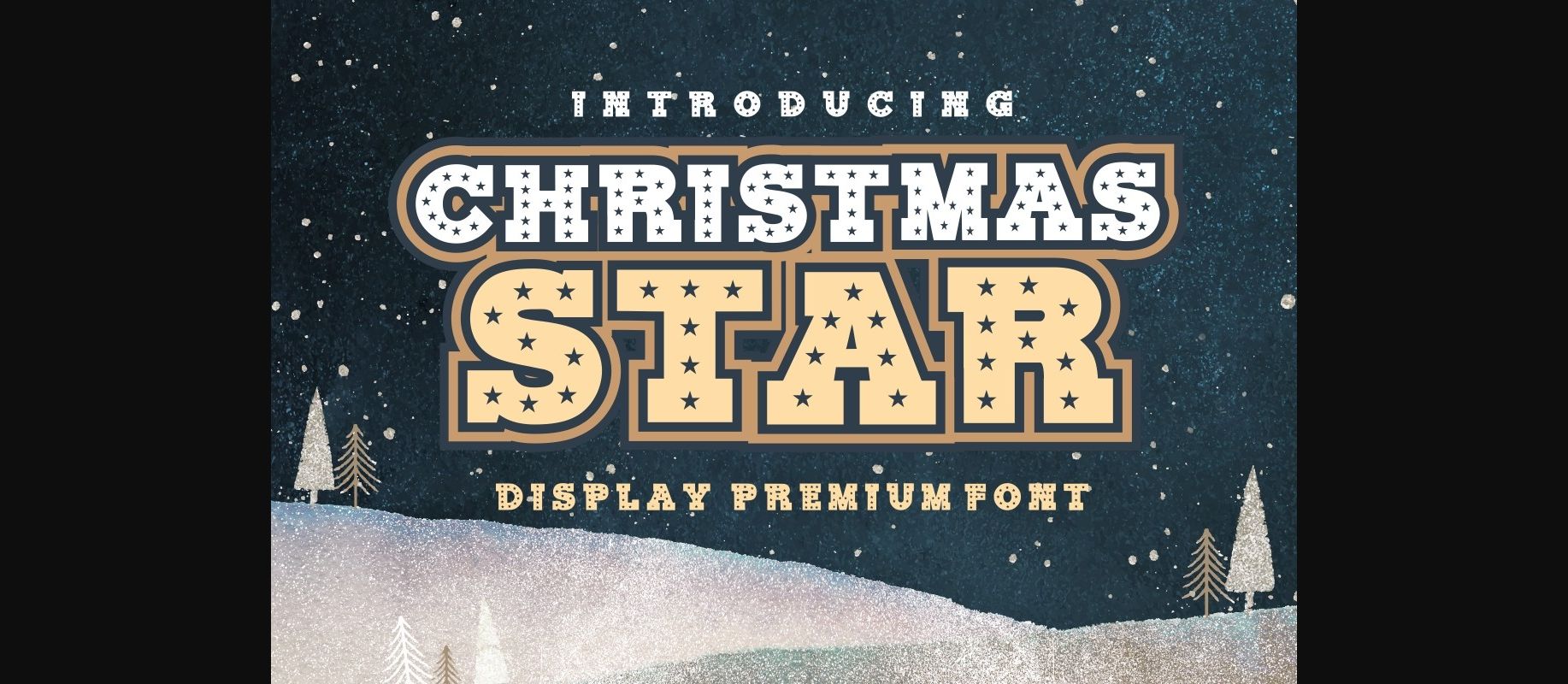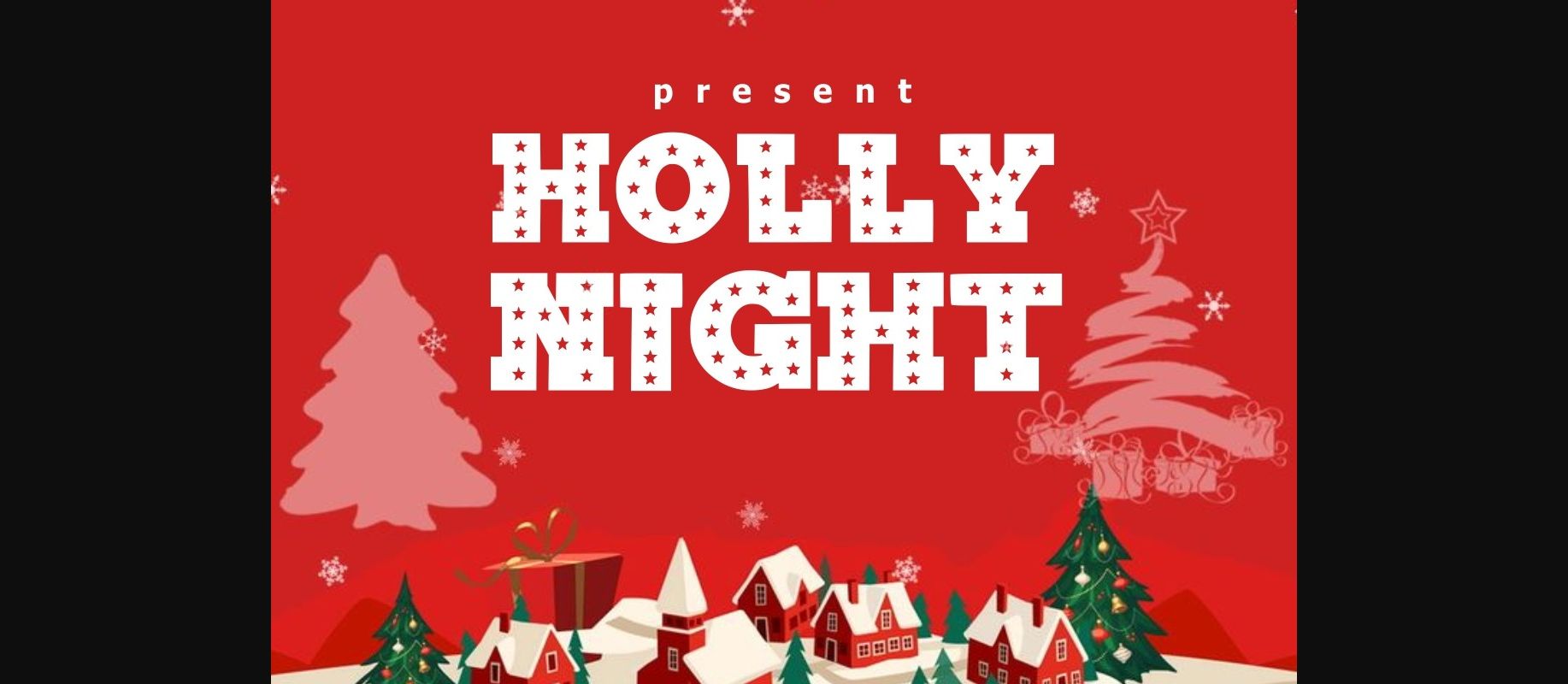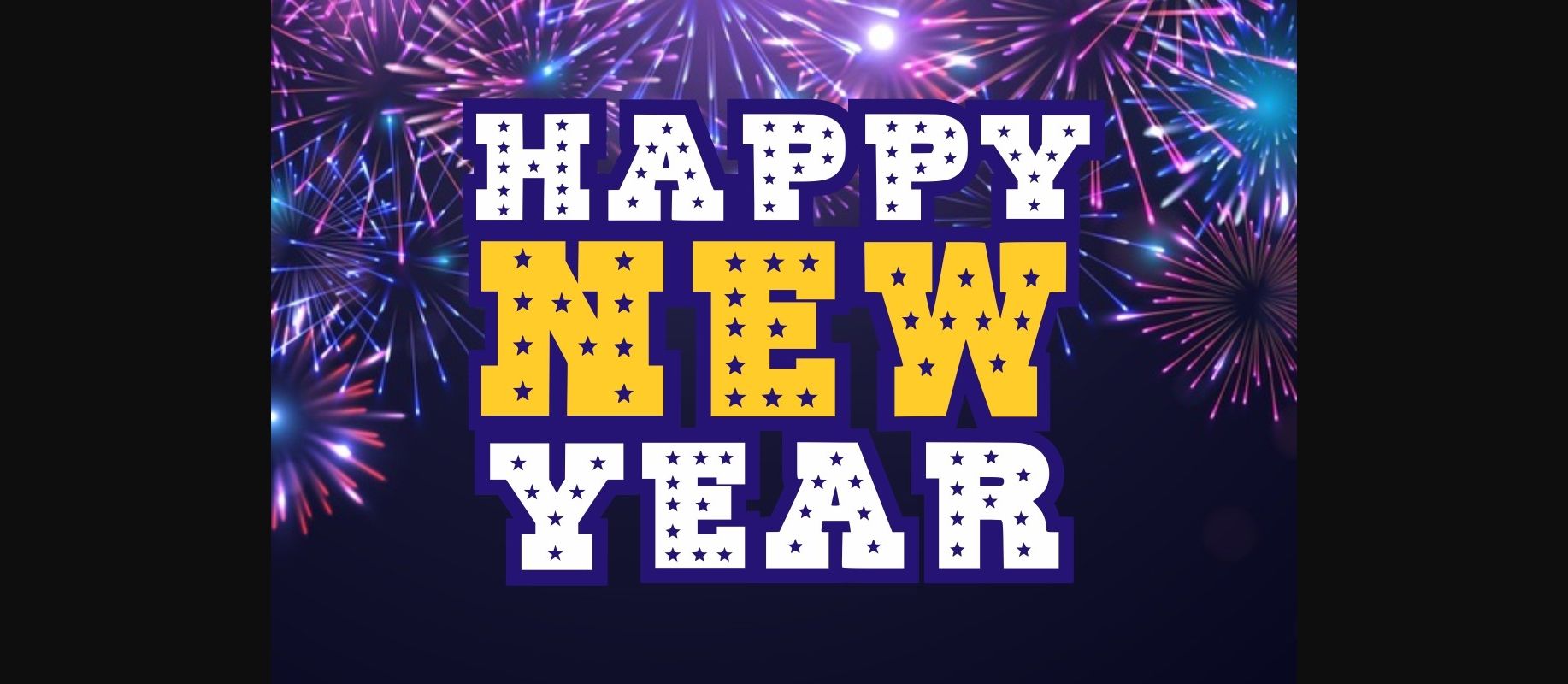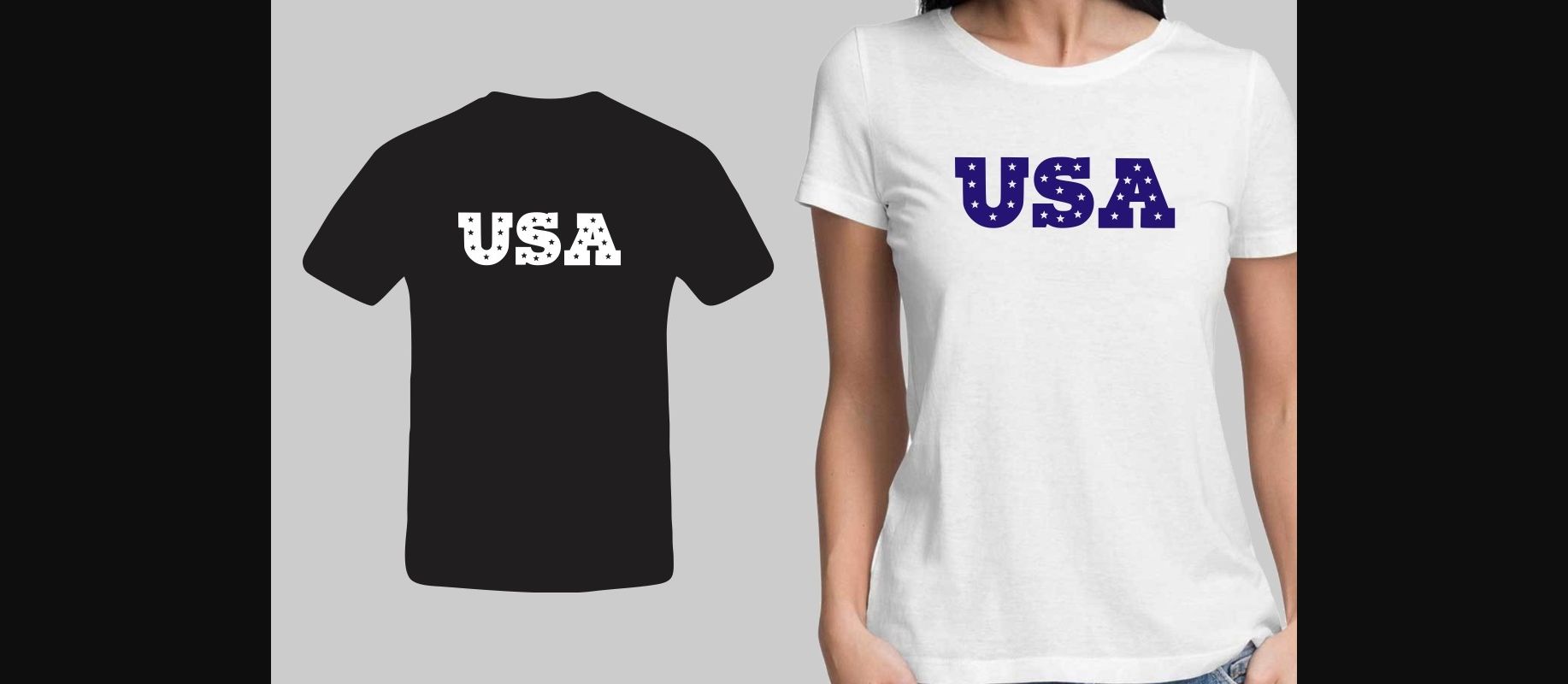
Christmas Star Font
About Christmas Star Font
Christmas Star is a fun and festive decorative font. It is suitable for any winter and holiday branding project, product packaging, invitation, quote, t-shirt, label, poster, and logo that you wish to develop.